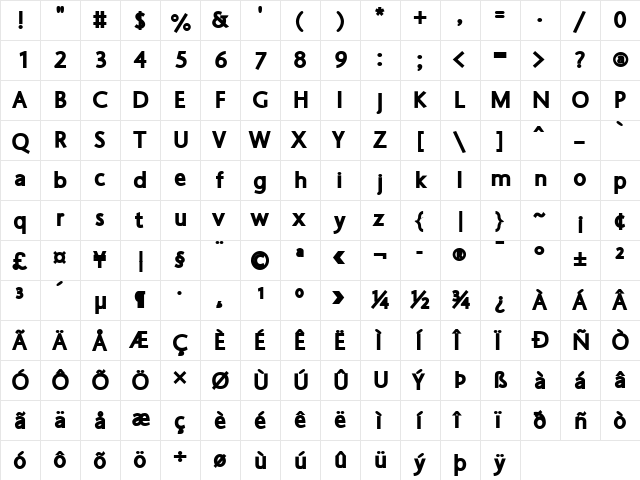
OskiWest Bold
Design Context for OskiWest Typeface
OskiWest is a composed and adaptable typeface that performs quietly and consistently across a wide range of design contexts. The heavy weight commands attention and anchors typographic hierarchies.
Pro Tip: Use OskiWest in both headline and body roles to test its range before committing to a single application.